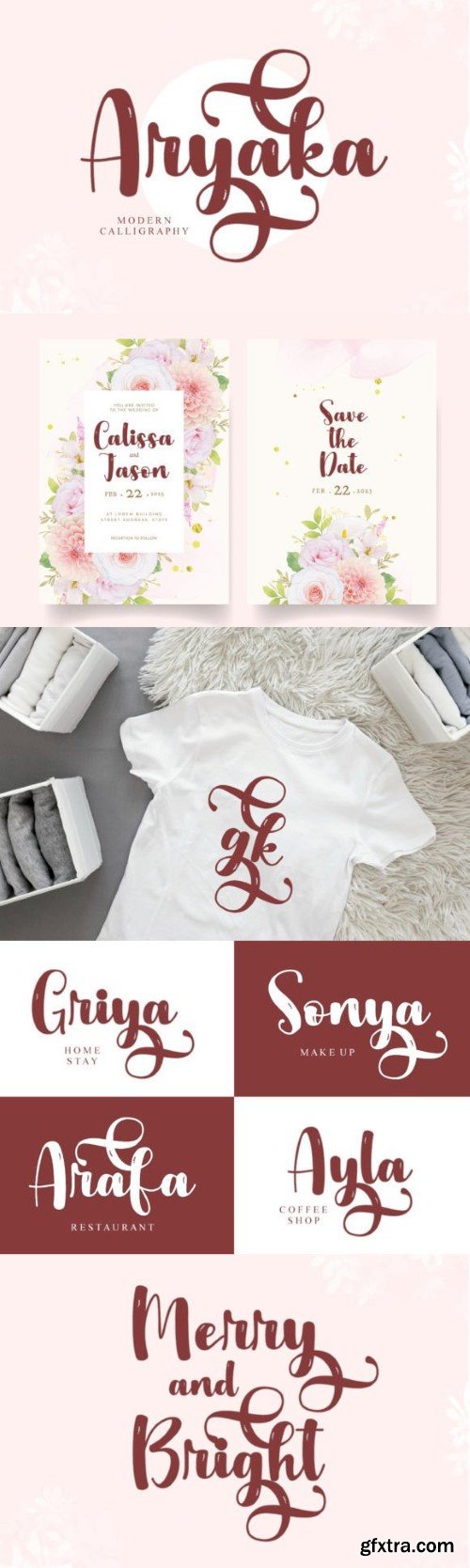
Aryaka is a modern calligraphy font. It has flowing letters that will give your designs a unique and sweet look with many lovely characters. Aryaka font is perfect; for logos, greeting cards, package design, brand identity, craft design, any DIY project, book titles, wedding invitations, packaging, and more.